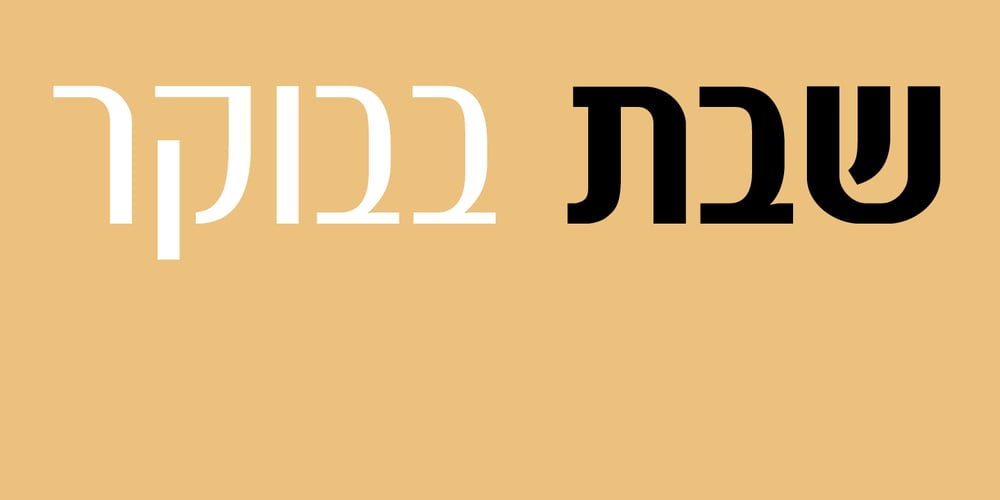
Rosenberg Naot MF
Rosenberg Naot MF font
Rosenberg Naot MF Font Family was designed by Zvika Rosenberg and published by Masterfont. Rosenberg Naot MF contains 4 styles and family package options. Great high contrast, semi condensed font family with high readability.